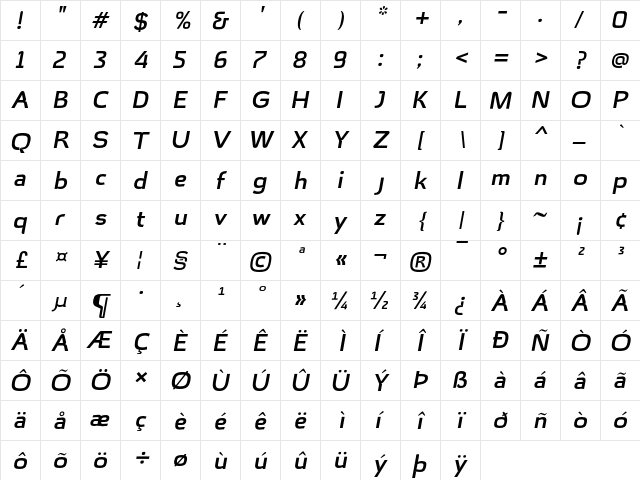
Hargloves Med Italic
| Designer | Rofiki Anas Maruf |
Design Context for Hargloves Med Typeface
Hargloves Med offers clean, dependable letterforms without strong stylistic allegiance, making it a practical choice for designers who need flexibility. The slanted form adds forward momentum and visual energy.
Pro Tip: Try Hargloves Med for annotation and caption copy alongside an upright companion — the contrast in angle creates a dynamic but ordered typographic system.